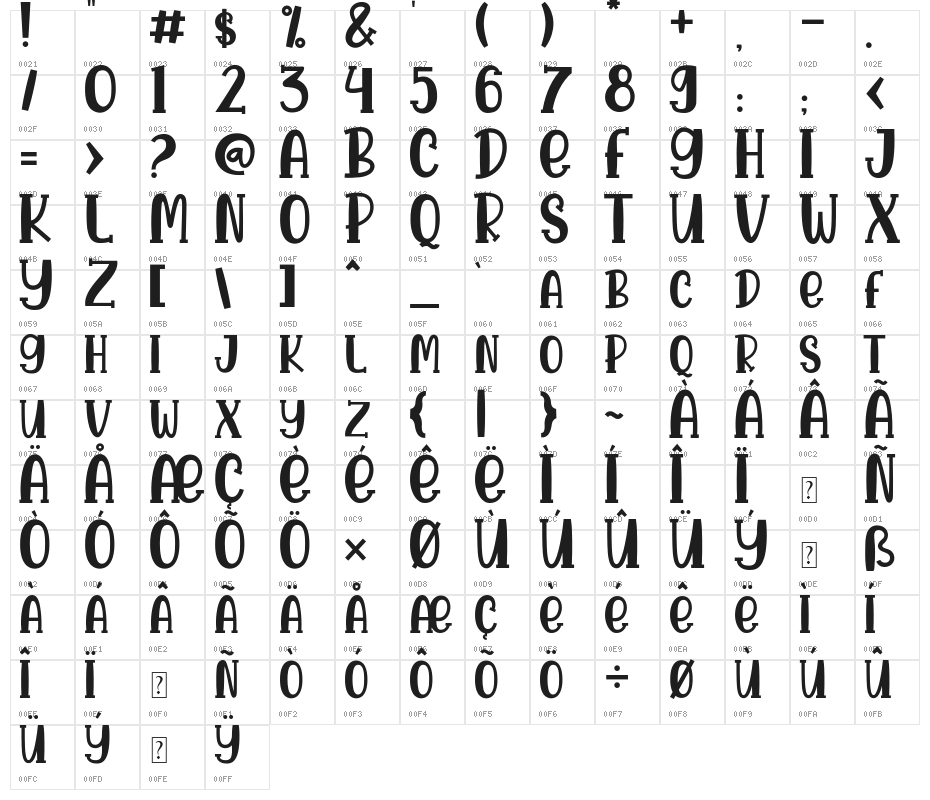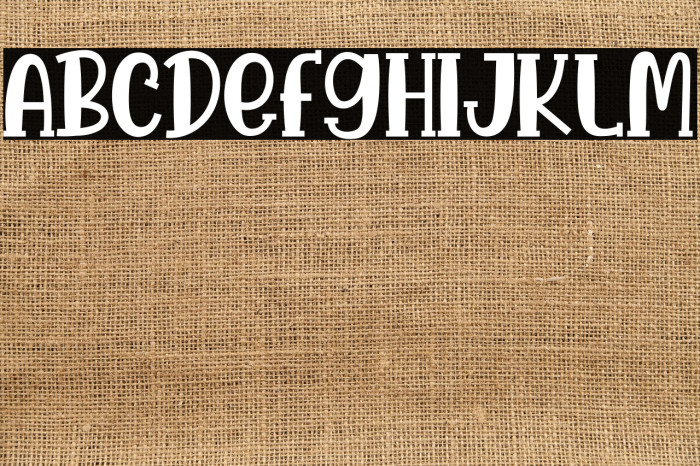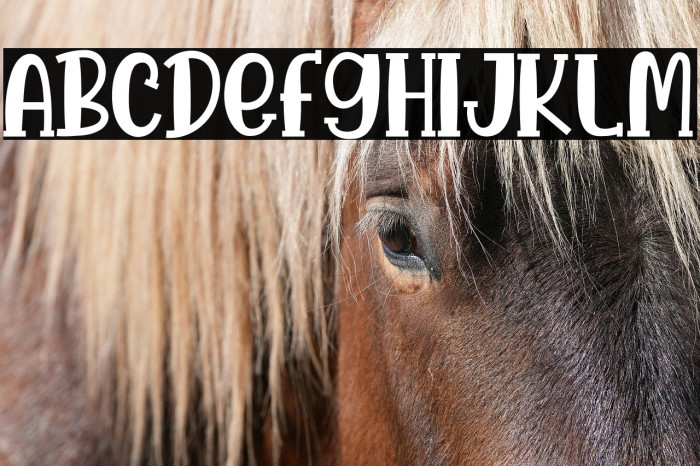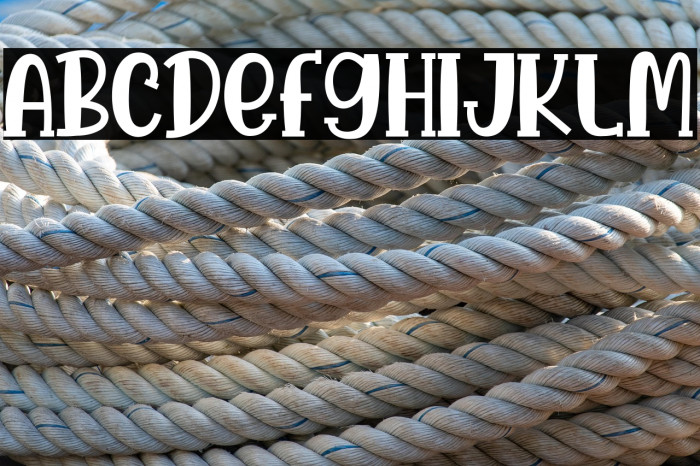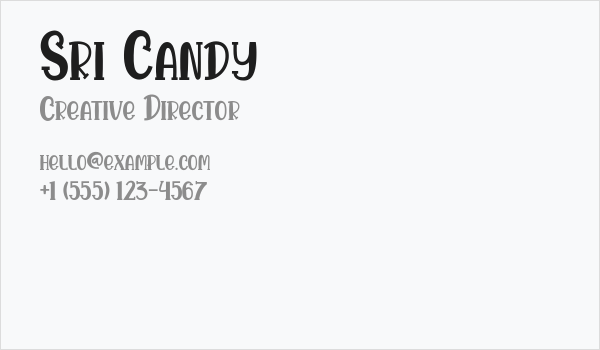
Sri Candy Font
Sri Candy Description
This font features a playful and bold design, characterized by its thick strokes and whimsical curves. The uppercase letters exhibit a unique blend of rounded and angular elements, creating a dynamic and eye-catching appearance. The lowercase letters maintain a consistent style, with slightly exaggerated loops and tails that add to the font's charm. Numbers are equally bold, with distinctive shapes that ensure readability. Special characters are creatively designed, complementing the overall aesthetic. The font's style is both modern and decorative, making it suitable for a variety of creative projects.
A bold, playful font with whimsical curves and a modern decorative style from Cartoon fonts.
- Proposed Projects: Ideal for children's books, playful branding, posters, and creative invitations.
- Overall Style: Modern, Decorative